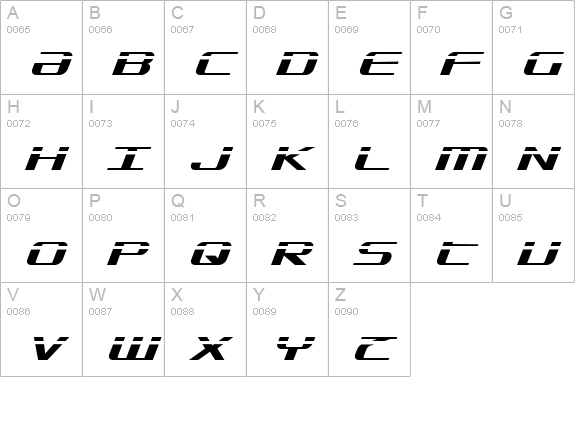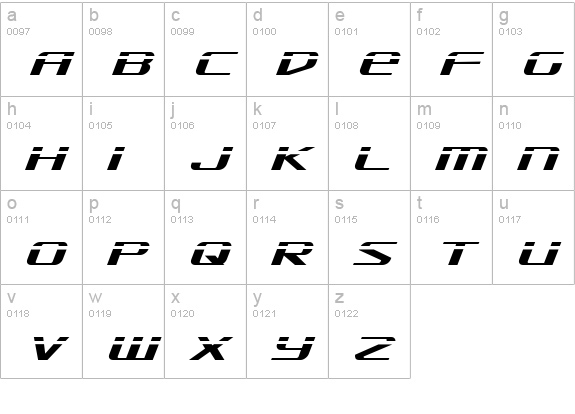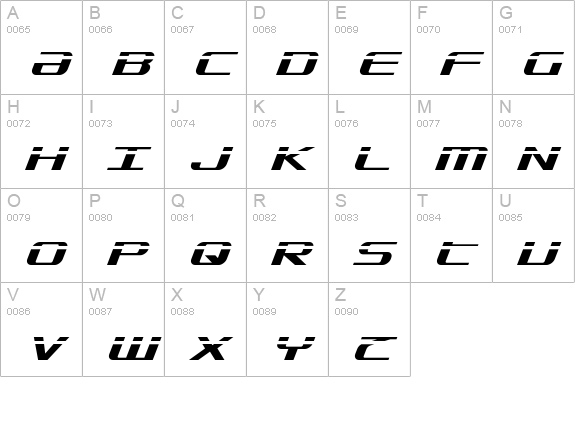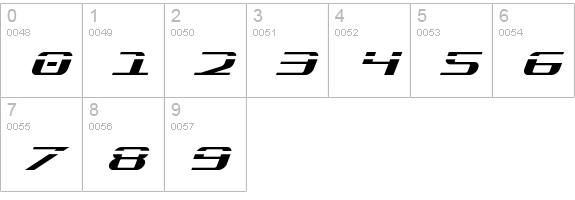
SDF Laser Italic is a distinctive, italic variant in the SDF typeface family \xE2\x80\x94 well suited to design and typography projects.
SDF Laser Italic font is a sleek and modern typeface that exudes elegance and sophistication. Its sharp, clean lines and italicized design make it perfect for adding a touch of style to any project. Whether you're designing a website, creating a logo, or crafting a print piece, SDF Laser Italic font is sure to make a bold statement. But the best part? This stunning font is completely free to download at FontsMarket.com. That's right, you can enhance your designs with the beauty of SDF Laser Italic font without spending a dime. Don't miss out on this amazing opportunity to elevate your work with this eye-catching typeface. Download SDF Laser Italic font today and see the difference it can make in your projects!